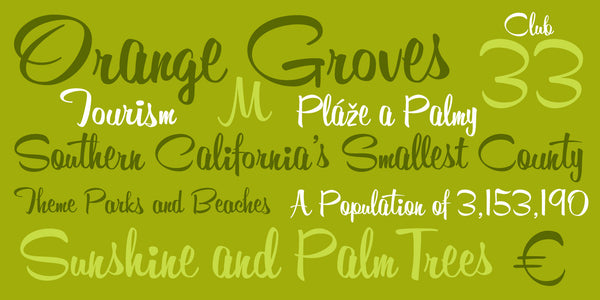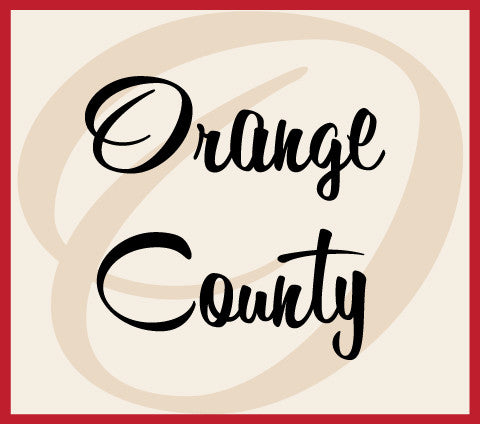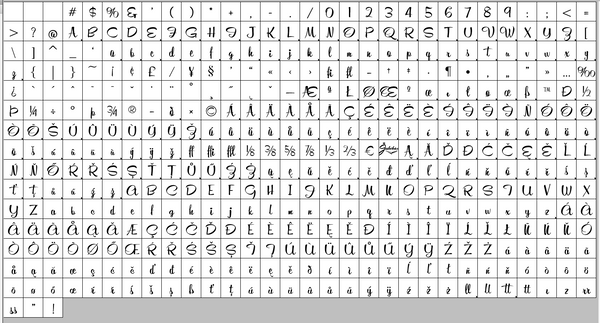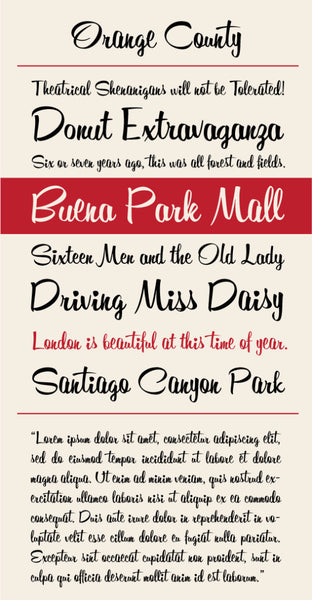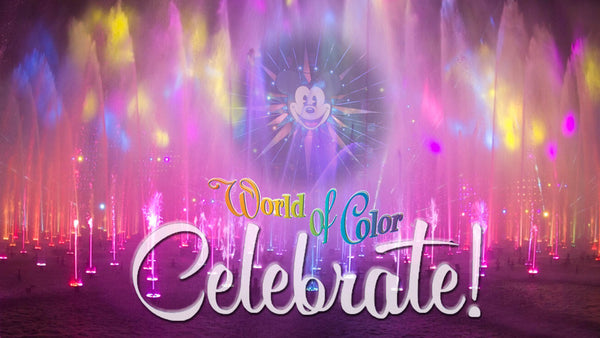
Orange County
Orange County is an original typeface from Jukebox done in the style of classic hand-painted scripts from the 1950s and 1960s. The modulated baseline and x-height lend the typeface a bouncy flair that makes it fun yet classy. The font contains two versions of each letter allowing the designer to mix and match for a more organic feeling. It is named for the county in southern California where I live.
Notable Use: Disneyland/Disney's California Adventure Park is using Orange County in the logo for their "World of Color: Celebrate" show.